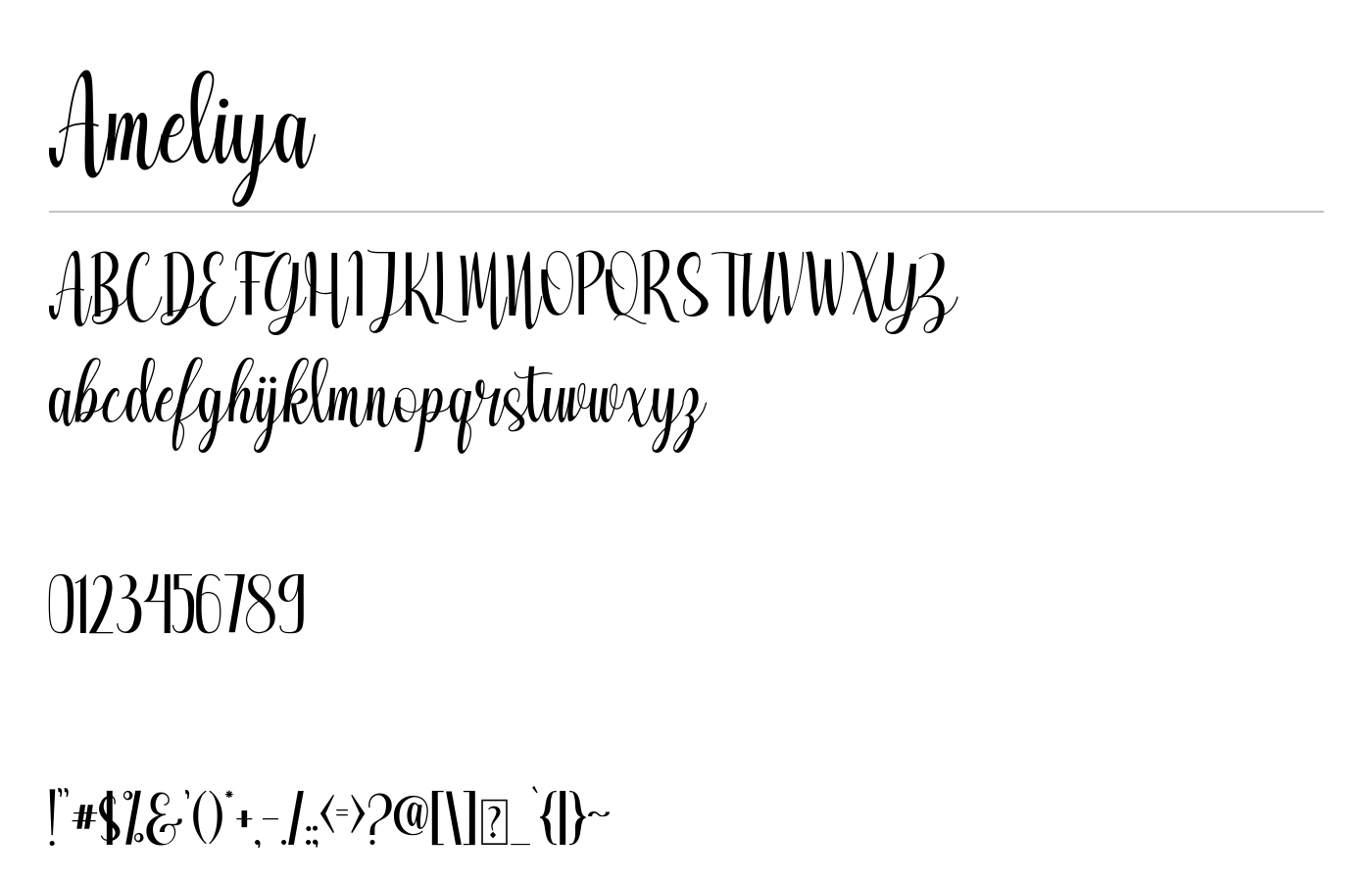
Ameliya is a stylish, elegant script font with a modern calligraphic feel, featuring tall, slender letterforms with graceful loops and flourishes. Its thin strokes and high contrast create a refined yet lively personality, making it ideal for fashion branding, invitations, and sophisticated logos where a touch of charm and luxury is desired. This font works well in headlines or display uses, bringing a delicate and artistic flair to any design.
Ameliya Font
About Ameliya Font